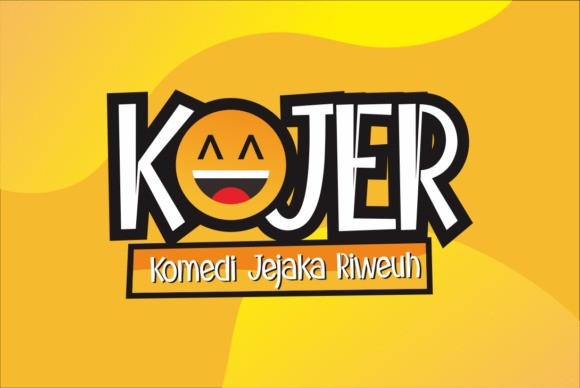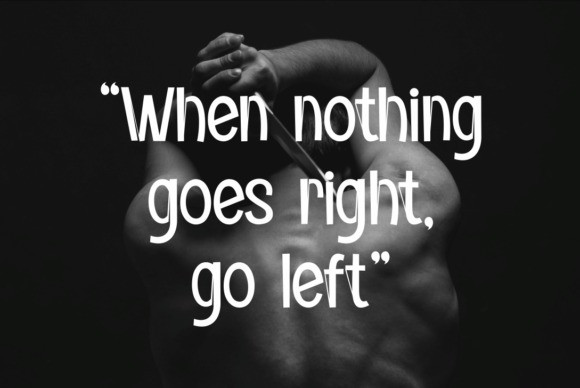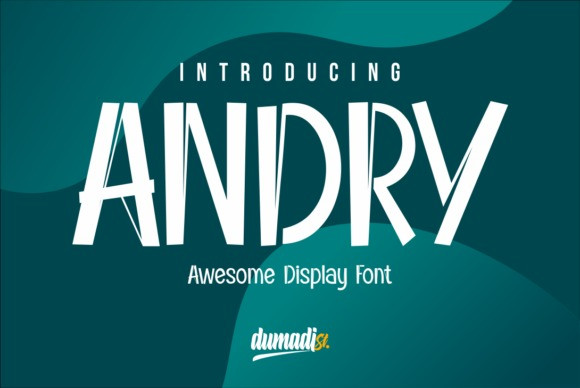
Andry Display Font
Befonts is very pleased to introduce a new modern display typeface. It’s a font display that is made by hand, inspired by classic posters. This is a display font that we recommend using in the following types. Andry Font is designed and shared by DUMADI. It’s a simple and relaxed display font. Whether it’s for web, print, moving images or anything else – Andry will look spectacular. It’s was designed for creating powerful logotypes, sports branding, posters, apparel design, magazine headlines, labels and much more.